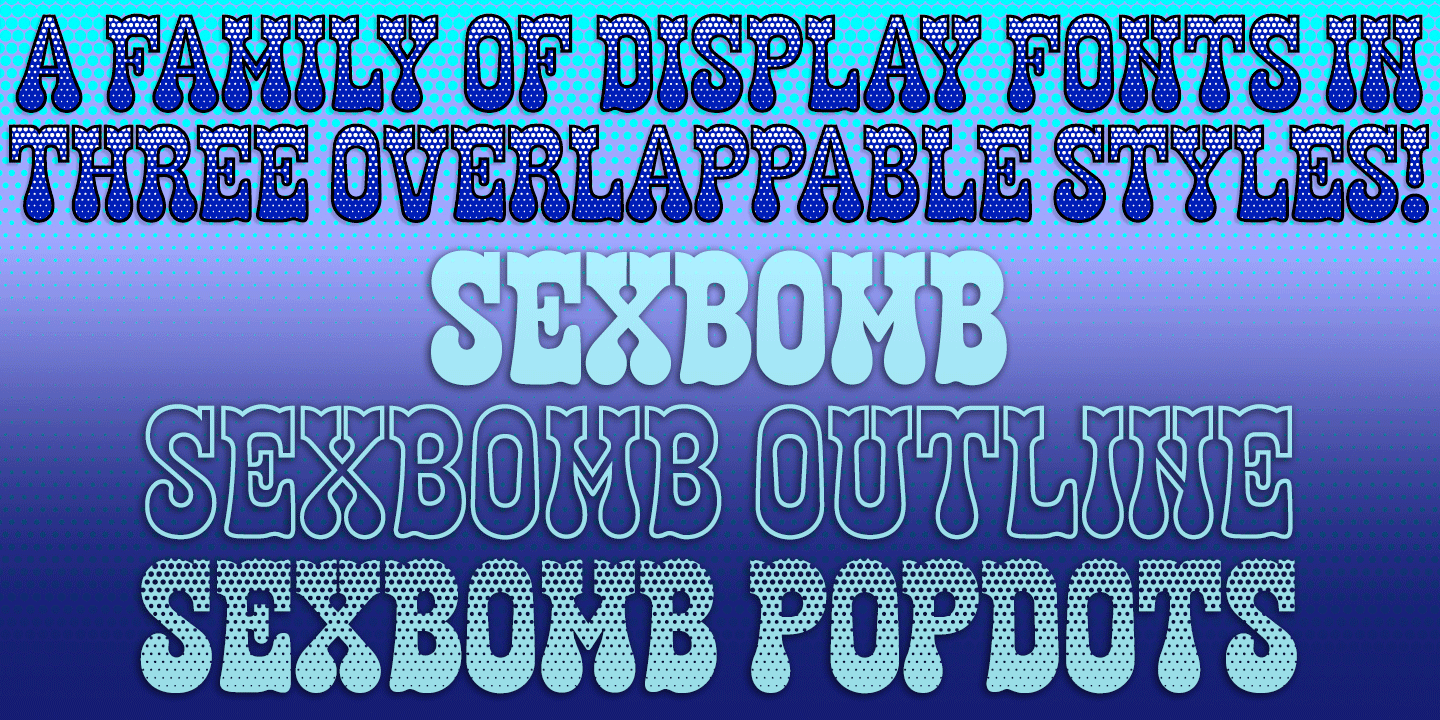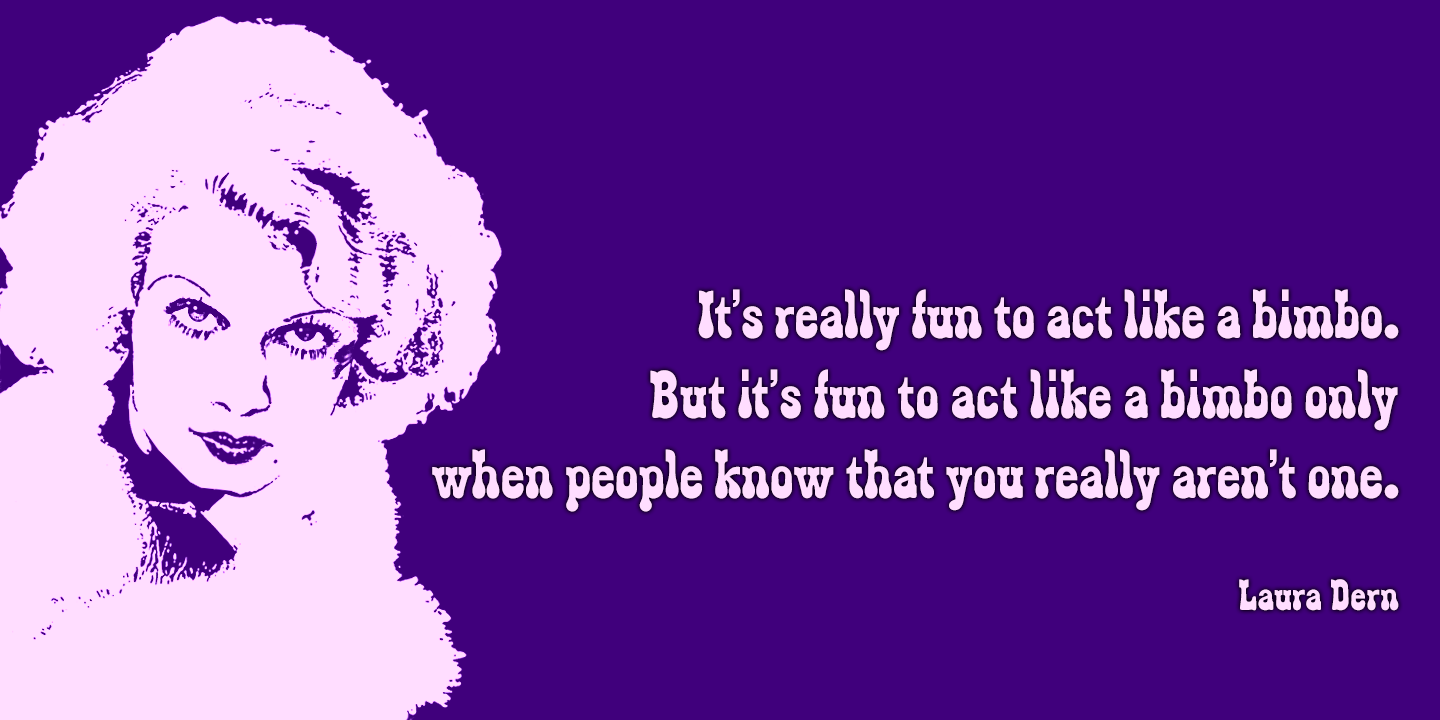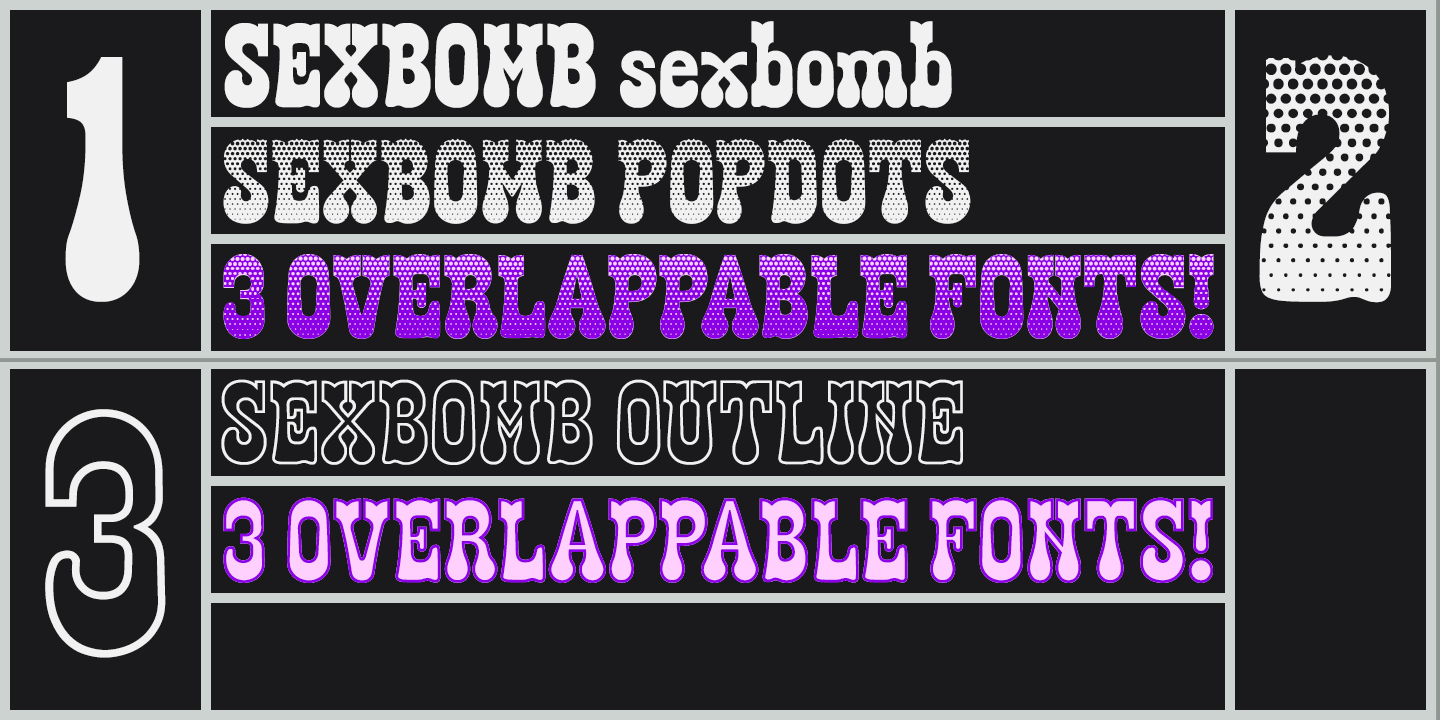
SEXBOMB is a frolicsome display face, a hybrid of two styles inspired by the countercultural quality of the K-Type Zabars font. Sexbomb retains the sharp, bifurcated upper portion of Zabars characters, but lower portions morph into sensuous, bulbous curves.…